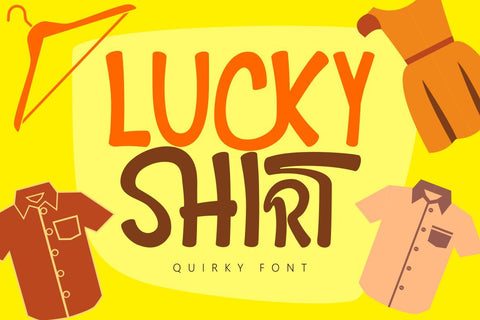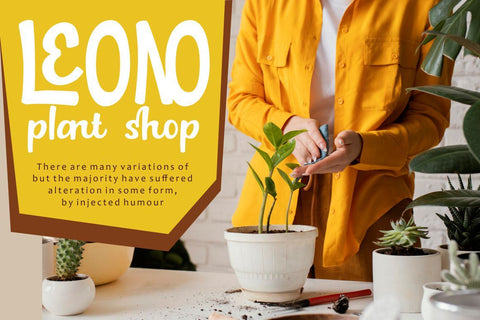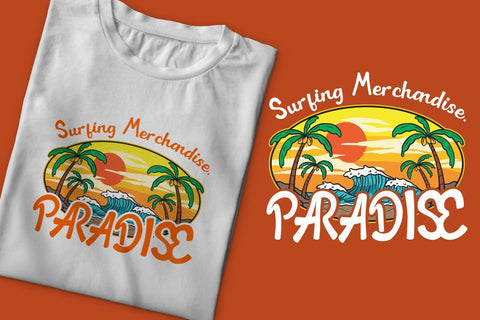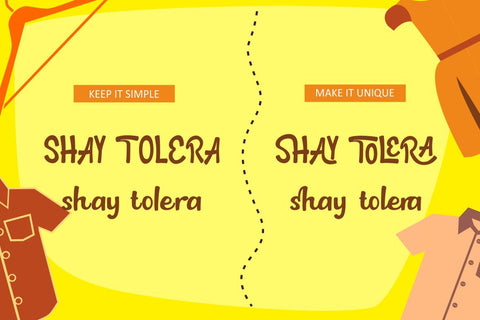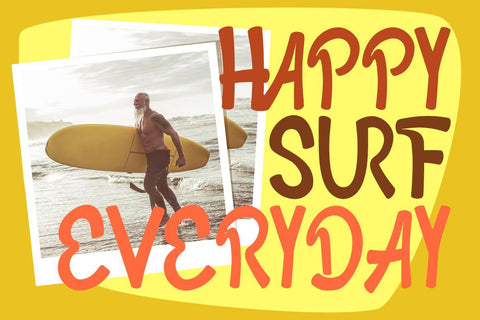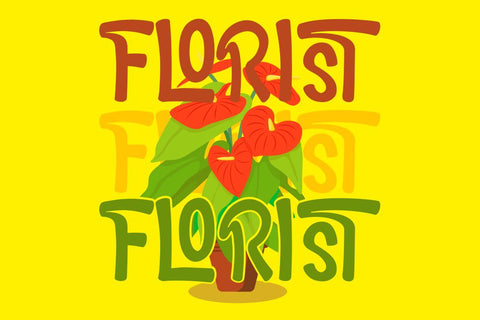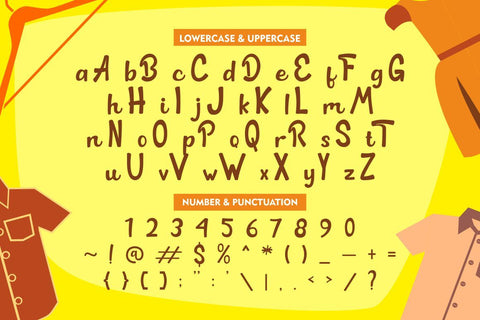
Lucky Shirt - Quirky Ligature Font
Introducing Lucky Shirt, a playful and quirky font. This font is perfect for your projects related to kids, which is playful and fun. Lucky Shirt also perfect for branding design, posters, apparel, logotype, header, quote, invitation, greeting card, cover, poster, fashion design and any more.
Come with lot of ligatures character, its help you to make great lettering. This font is also support multi language.
Comes with feature :
- Number, Punctuation And Symbols
- Multilanguage Support.
- Ligature